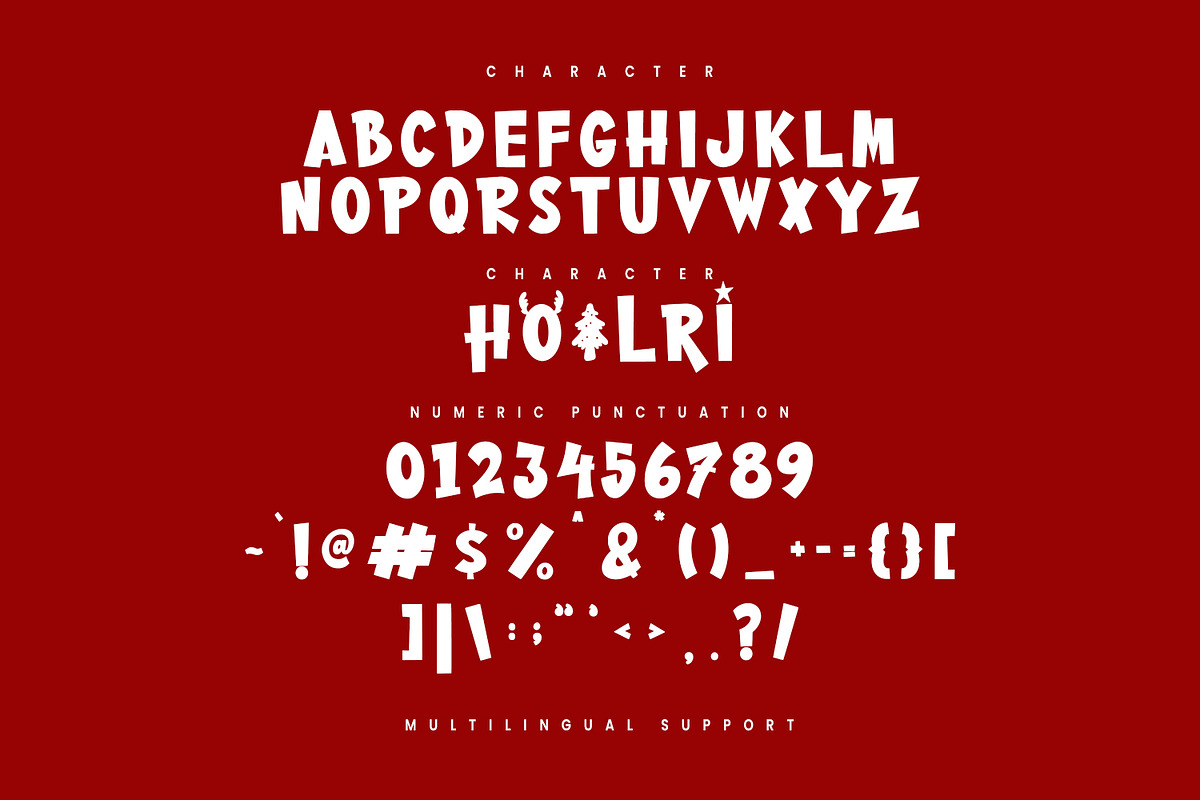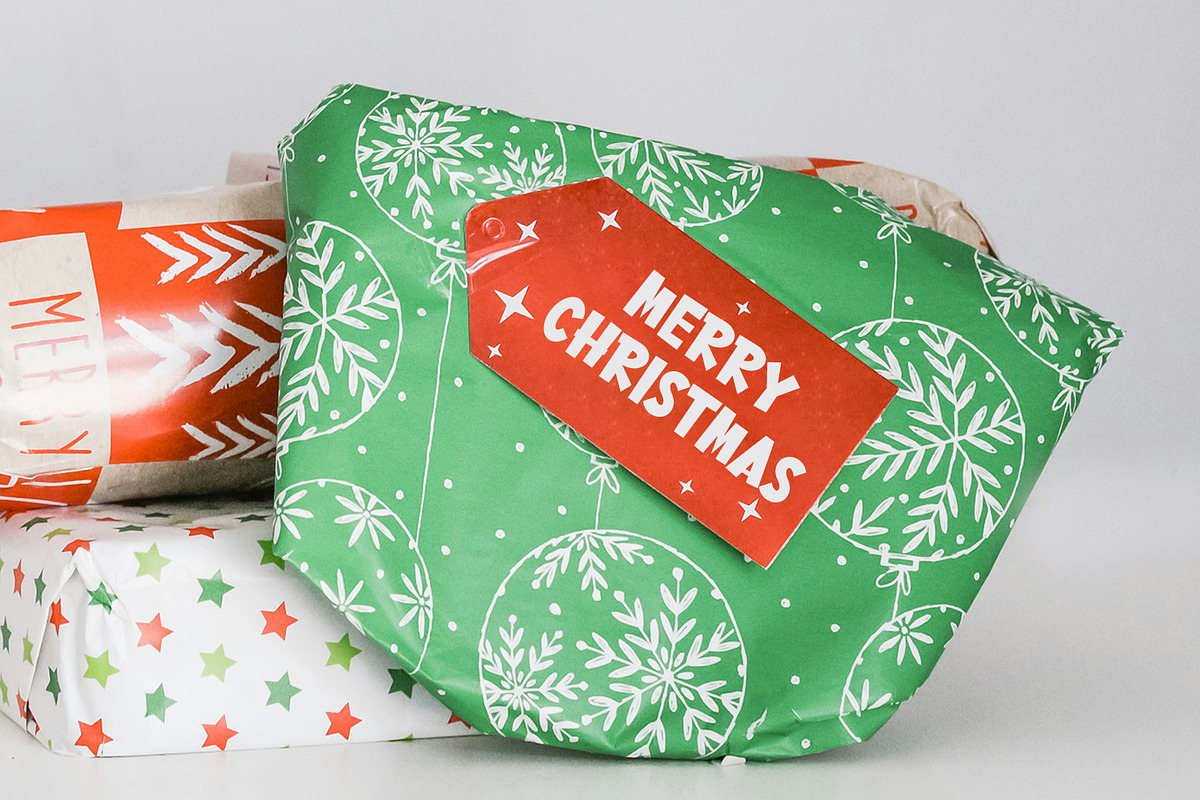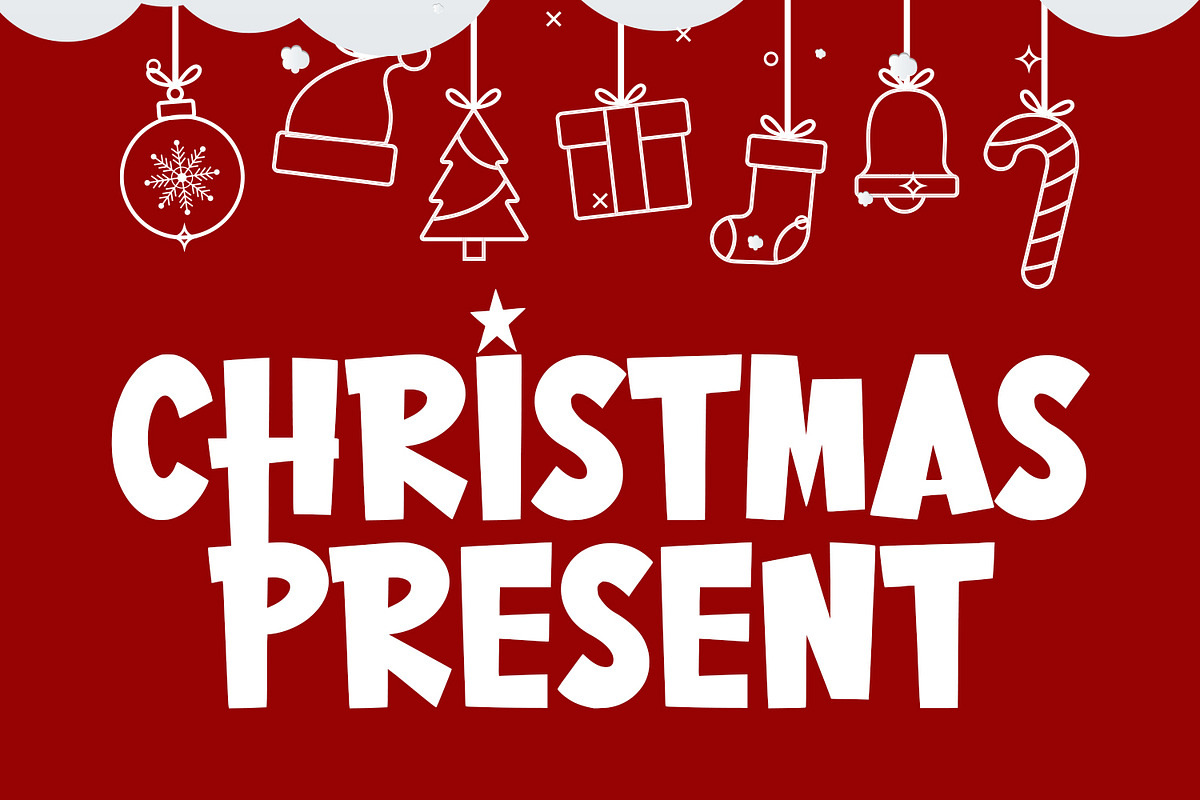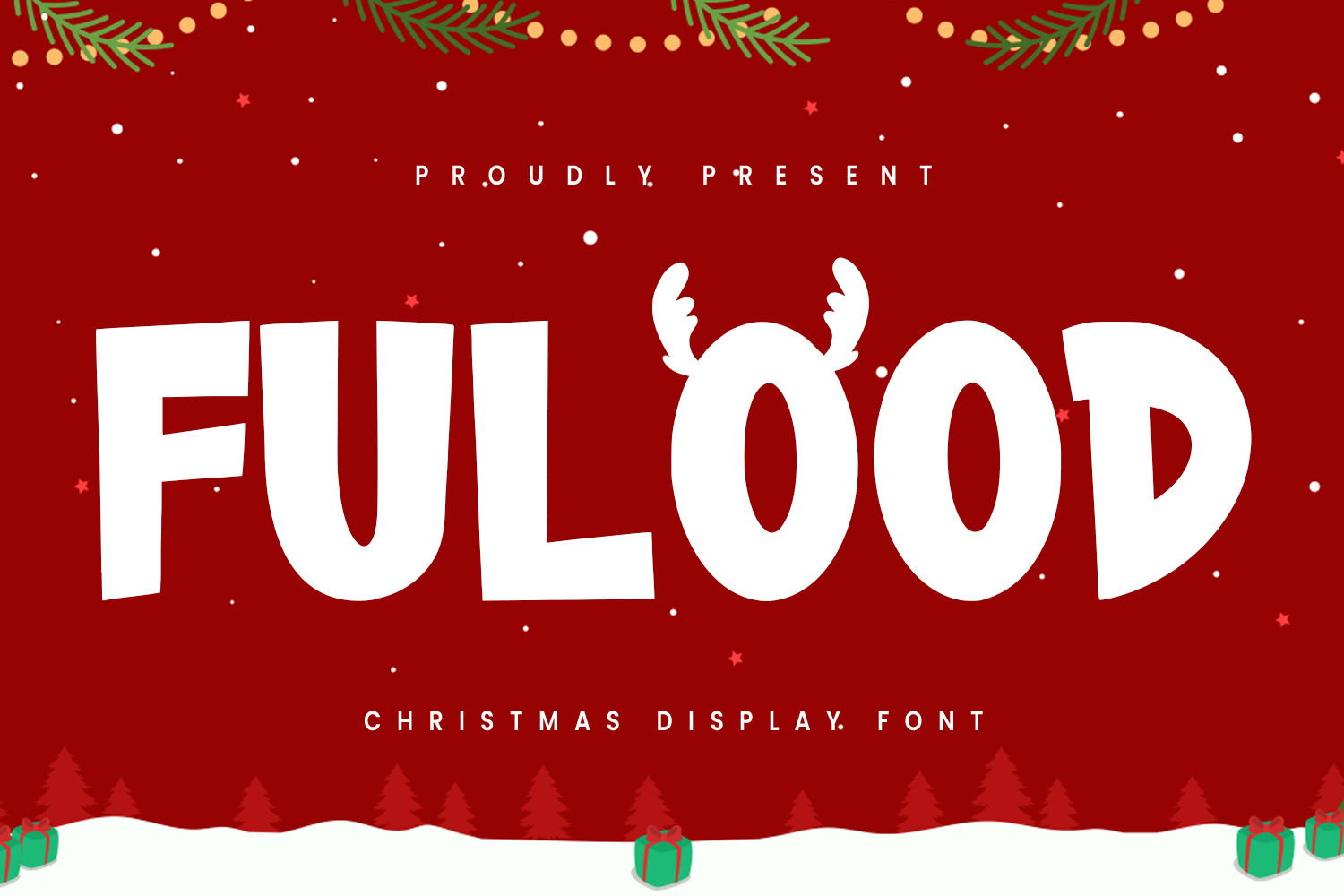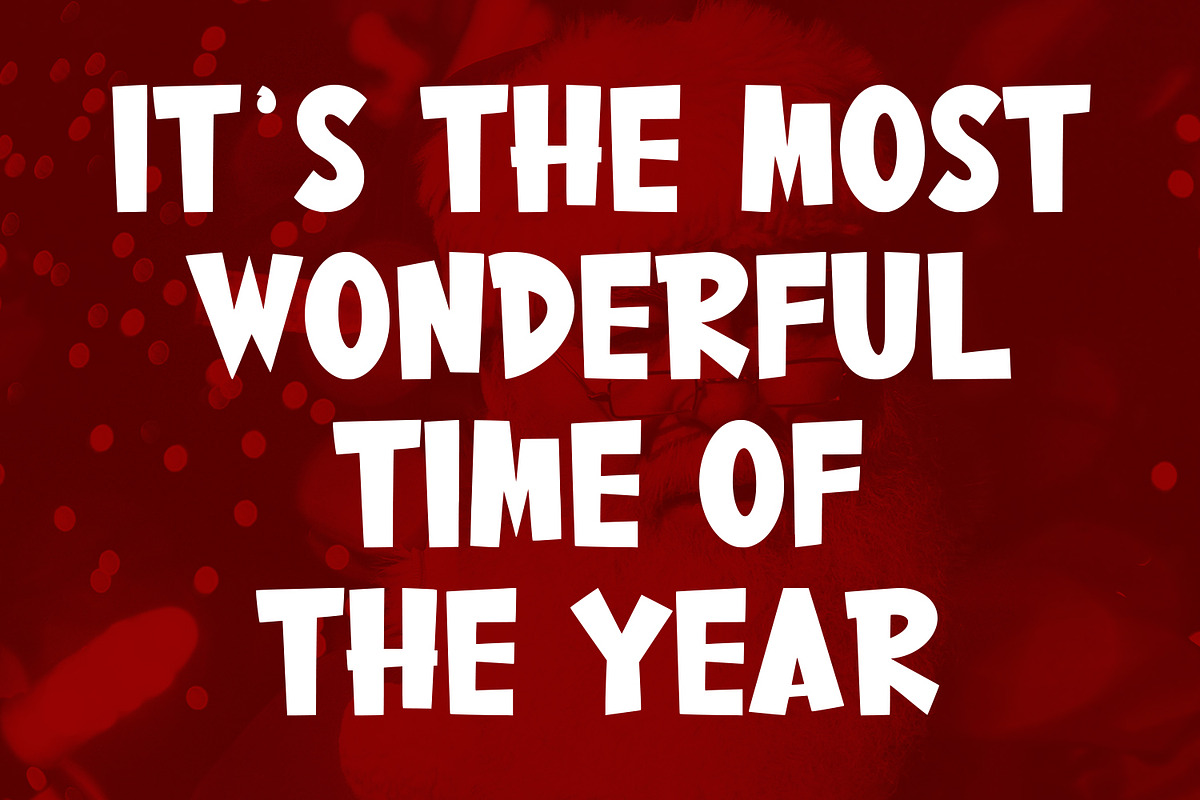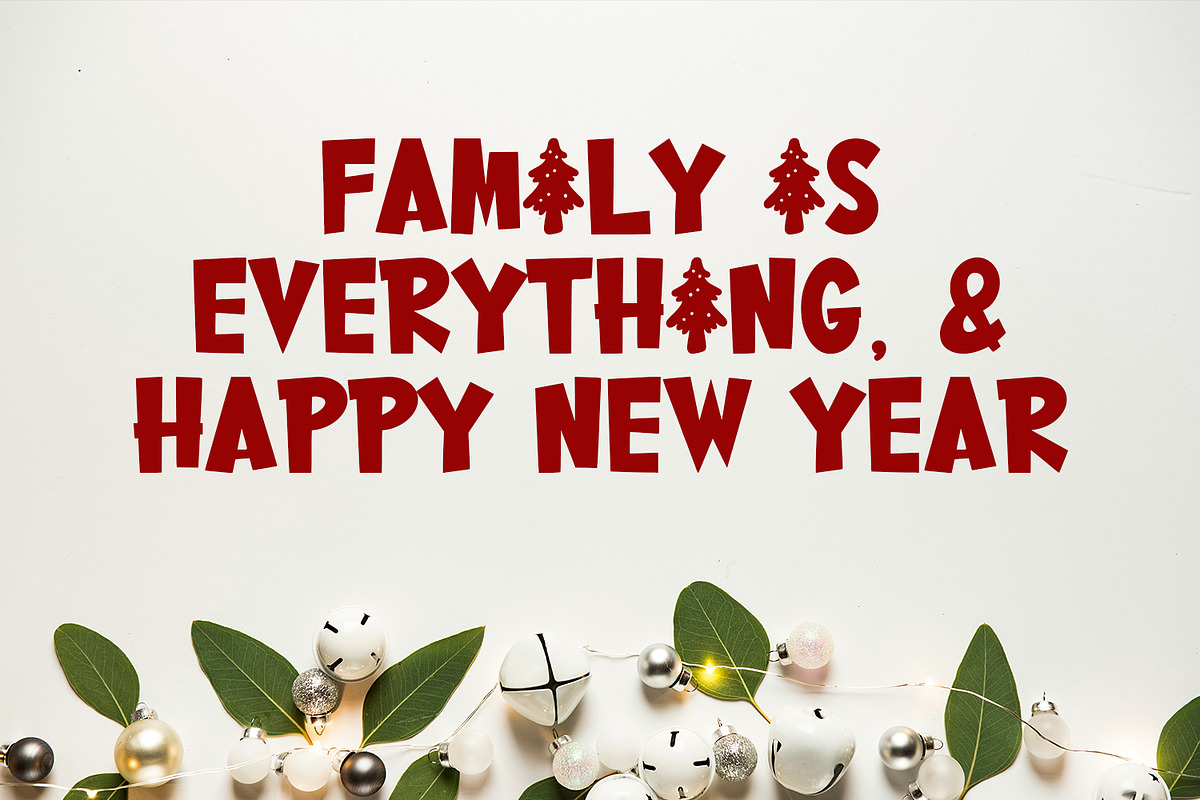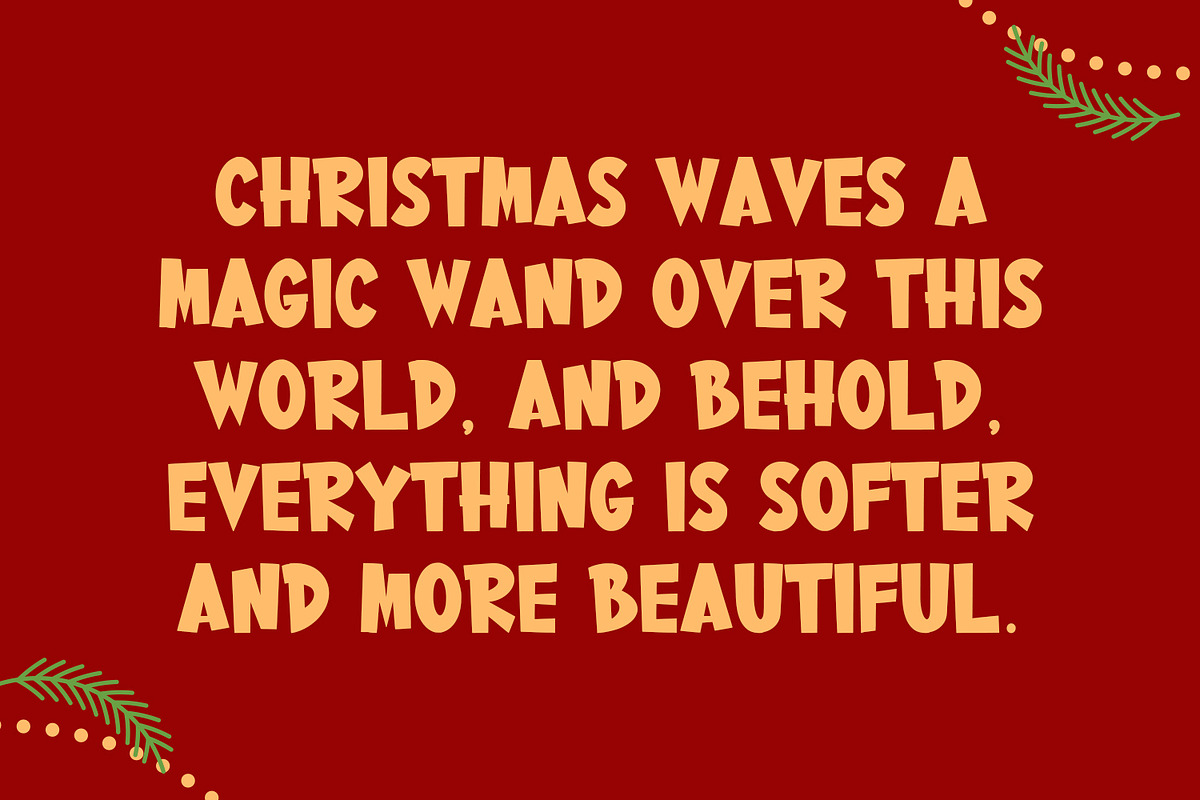
Fulood Display Font Christmas
Fulood is a handwritten sans christmas display font. With simple stroke, fun character with a awesome alternates. To give you an extra creative work Fulood font support multilingual more than 100+ language. This font is good for logo design, Social media, Movie Titles, Books Titles, a short text even a long text letter and good for your secondary text font with sans or serif. Make a stunning work with Fulood font.